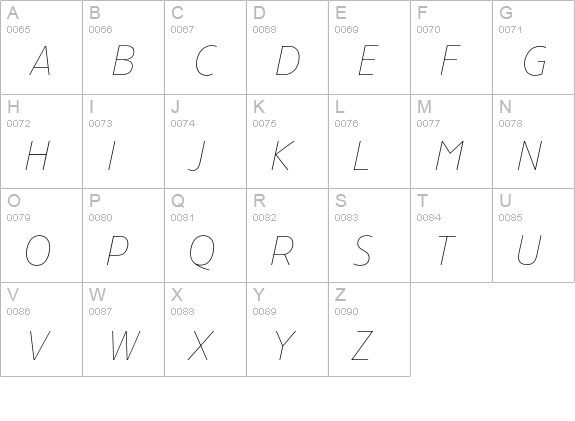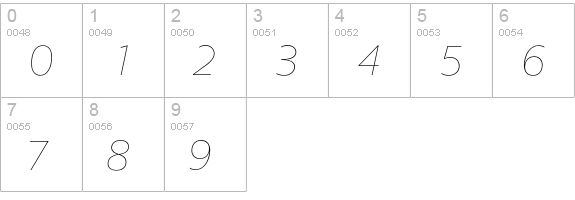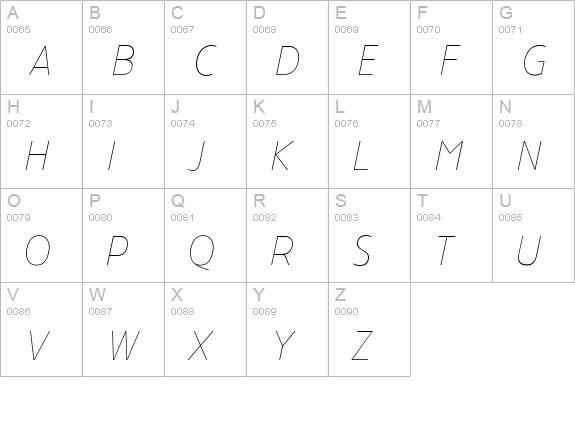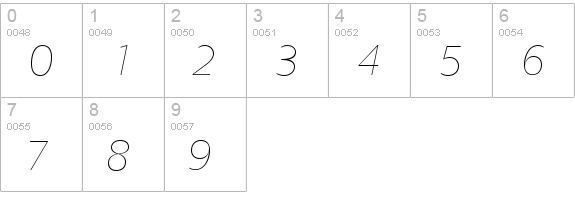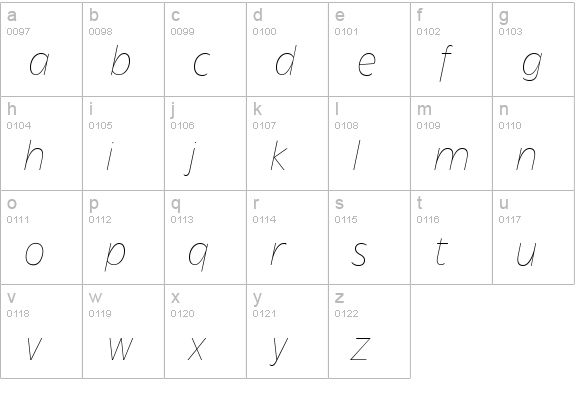
TFForever-ThinItalic is a stunningly elegant and sophisticated font that effortlessly combines grace and versatility. Designed with a delicate touch, this font exudes a sense of timeless beauty and refinement, making it the perfect choice for projects that require a touch of class. The ThinItalic variant of TFForever adds a touch of whimsical charm to the font's already captivating aesthetic. The slanted and slightly elongated letterforms create a sense of movement and fluidity, adding a unique twist to any design. This font is freely available to download at FontsMarket.com, where it can be easily accessed and utilized for various creative purposes. Whether you're designing a logo, creating eye-catching headlines, or even working on a personal project, TFForever-ThinItalic is sure to elevate your design to new heights. With its clean lines and impeccable craftsmanship, this font is highly legible even at smaller sizes, ensuring that your message is conveyed with clarity and precision. Its versatility allows it to seamlessly adapt to any design style or genre, making it a valuable asset for both professional designers and enthusiasts alike. TFForever-ThinItalic is a font that truly stands the test of time. Its timeless beauty and graceful demeanor make it a go-to choice for those seeking a touch of sophistication and elegance in their designs. Download this font for free at FontsMarket.com and unlock a world of endless creative possibilities.